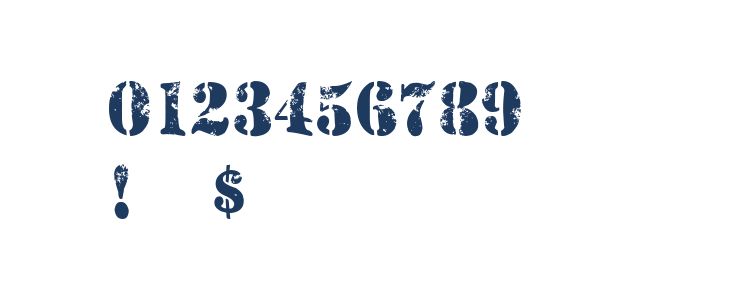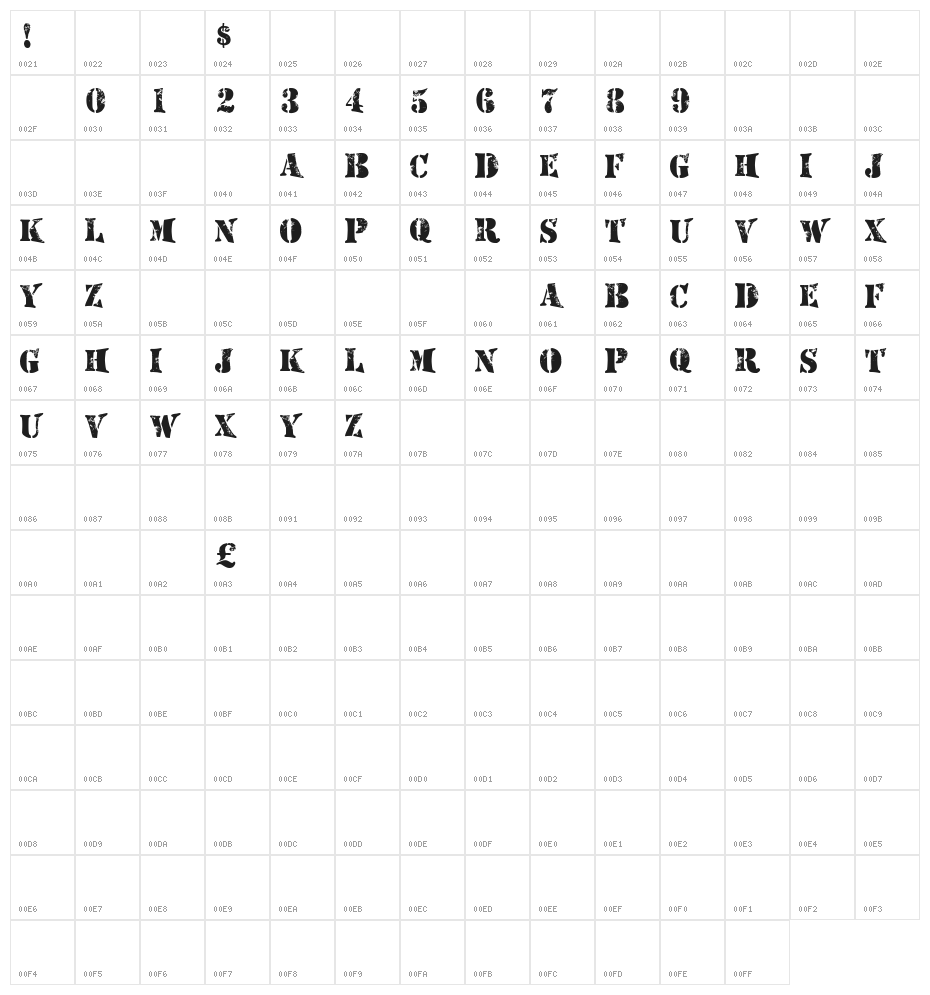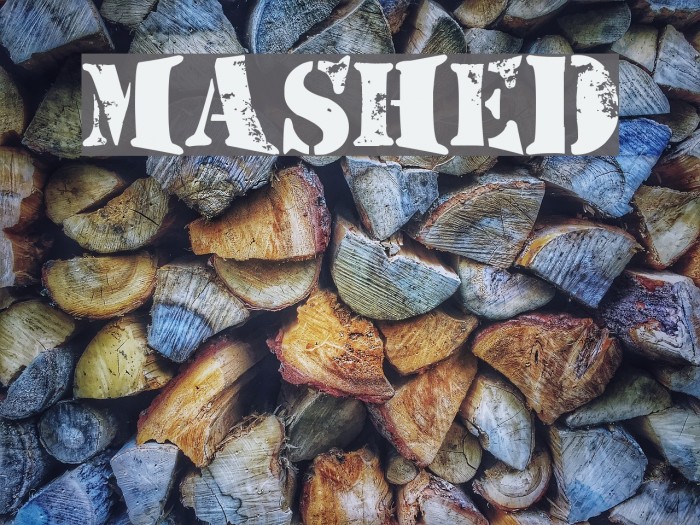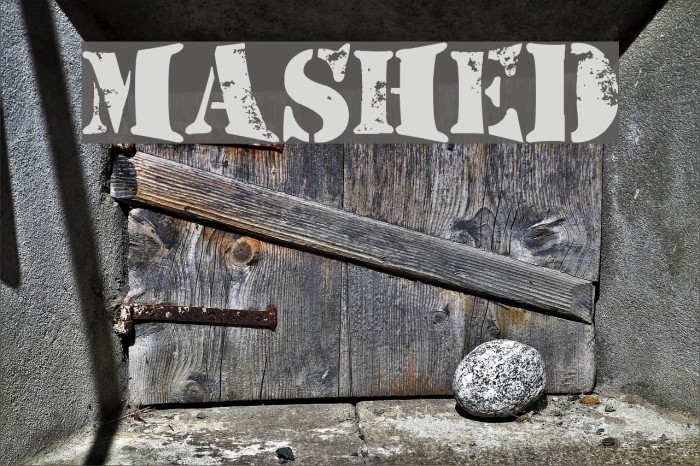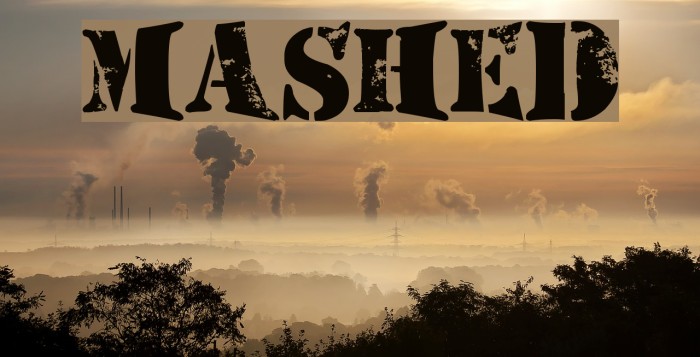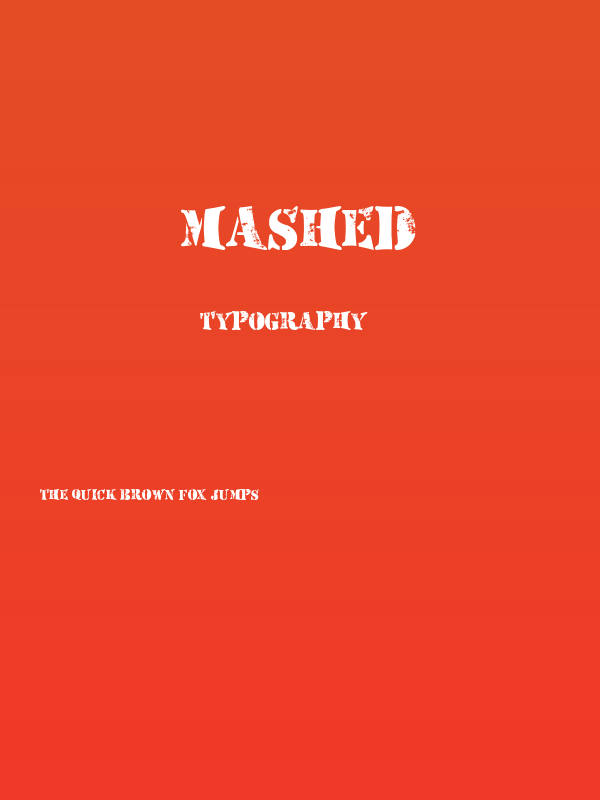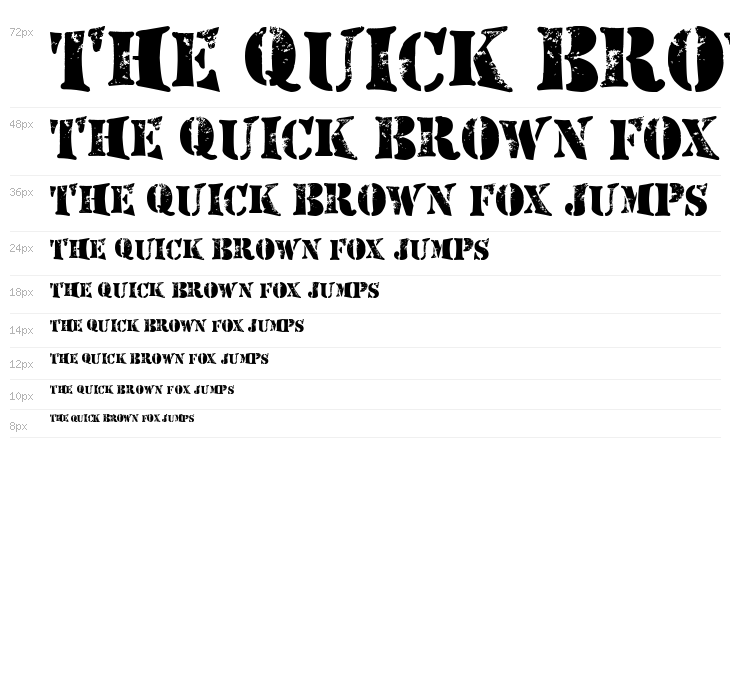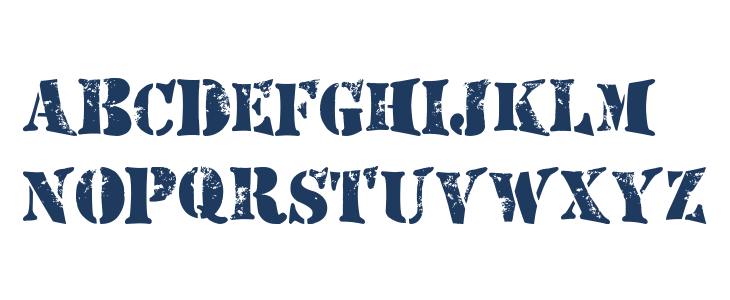
Mashed Font
Mashed Description
This font features a bold, distressed style with a rough, textured appearance that gives it a grunge or vintage look. The characters are heavily stylized with uneven edges and a worn-out effect, making it ideal for designs that require a rugged or rebellious aesthetic. The uppercase letters are prominent and impactful, while the numbers and special characters maintain the same distressed theme. This font is perfect for projects that aim to convey a sense of edginess or nostalgia, such as posters, album covers, or themed event invitations.
Overall StyleVintage
Use CaseHeadlines, Logos
Proposed ProjectsIdeal for posters, album covers, themed event invitations, and any design needing a rugged, vintage look.